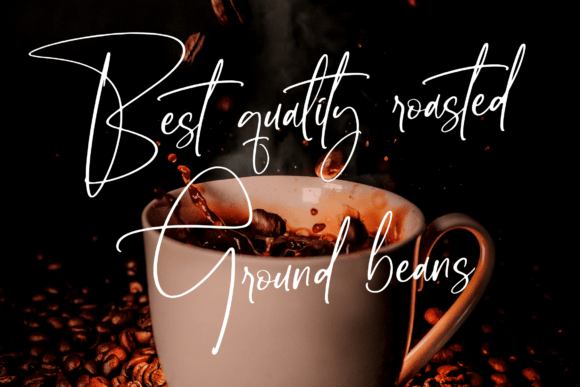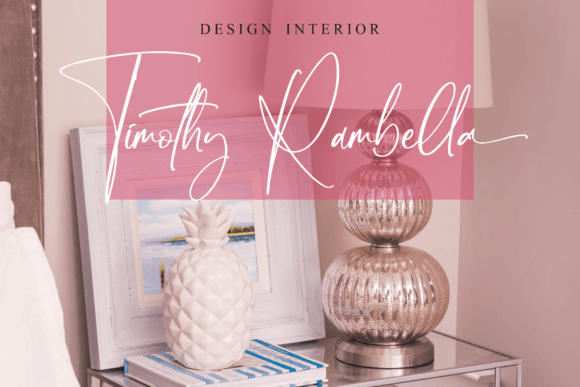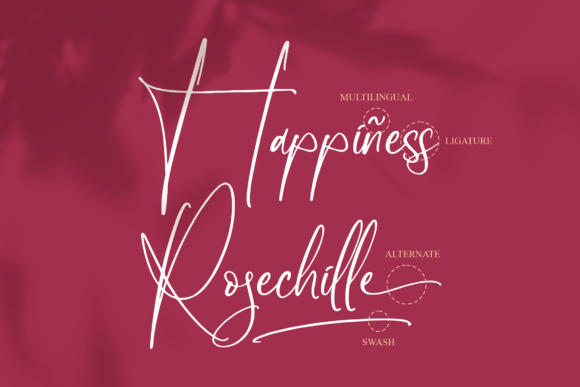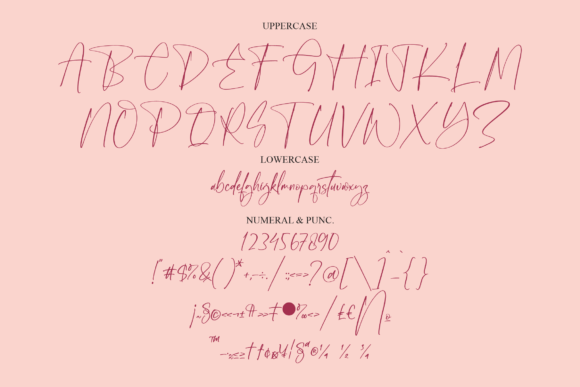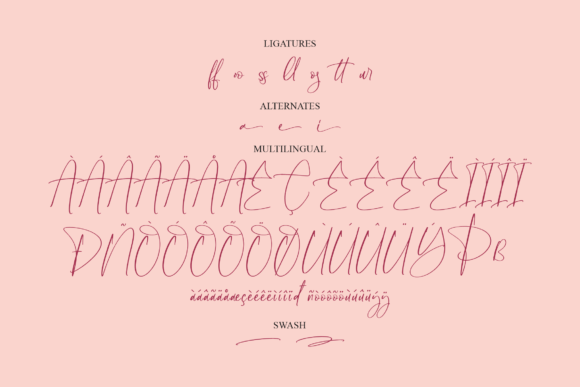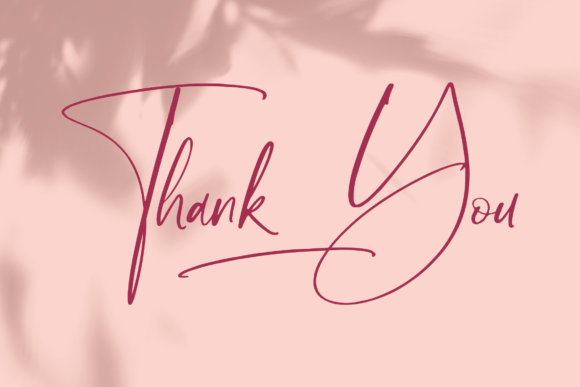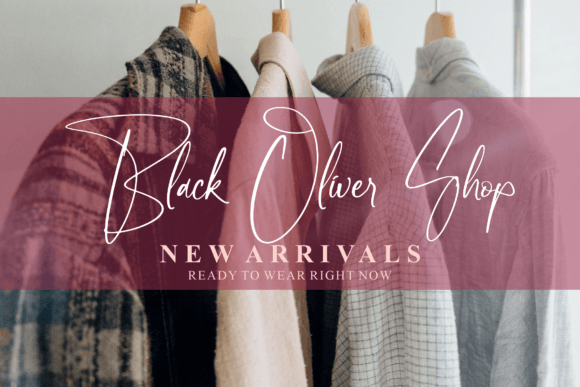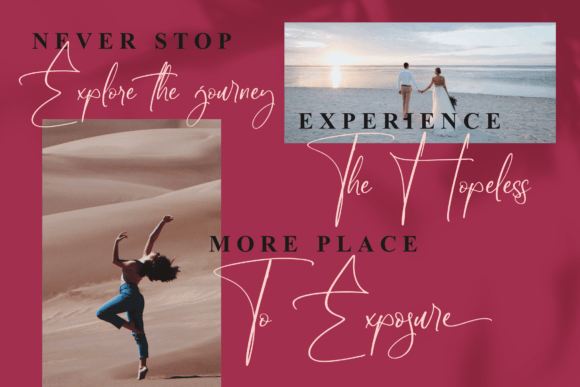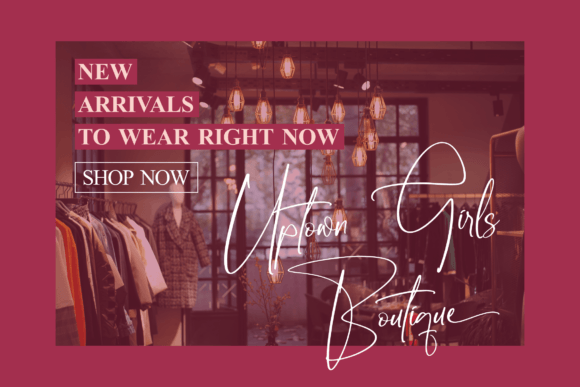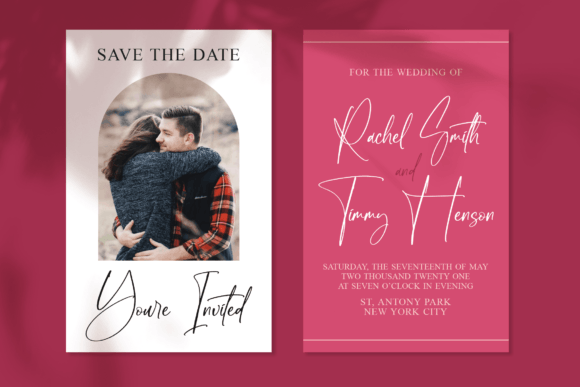
Rosechille Font
About Rosechille Font
Rosechille, a beautiful script font, brings an exquisite touch to your projects, making it suitable for a wide range of creative applications. Crafted with elegance and precision, this font is versatile and designed to enhance the aesthetics of various design projects. Whether you’re working on logos, branding, homeware designs, product packaging, quotes, posters, or any other creative endeavor, Rosechille infuses a beautiful script taste into your work.
The versatility of Rosechille is evident in its applicability to different design contexts. From mugs and shopping bags to book covers and name cards, this font adapts seamlessly, adding a touch of sophistication and script elegance. Its script style brings a personalized and refined aesthetic, making it a valuable asset for projects that require a beautiful and tasteful script.
The use of Rosechille extends to special events such as invitations, greeting cards, and labels. Its graceful script letters enhance the overall presentation, creating designs that are not only visually appealing but also carry a sense of warmth and charm.
Incorporate Rosechille into your creative projects, and witness how it transforms ordinary designs into beautiful expressions of style. Whether it’s branding materials, product packaging, or any lovely project that requires a script taste, Rosechille stands out as a font that adds a touch of elegance and beauty. Let Rosechille be the script font that elevates your designs, making them truly memorable and delightful.